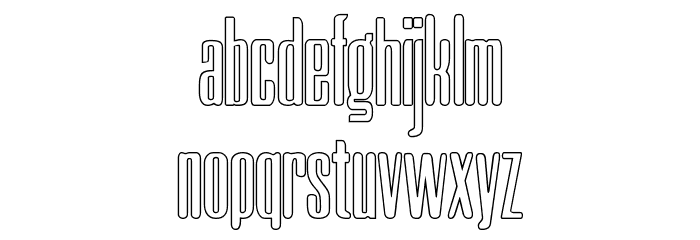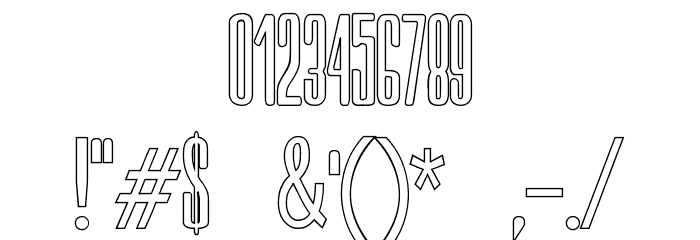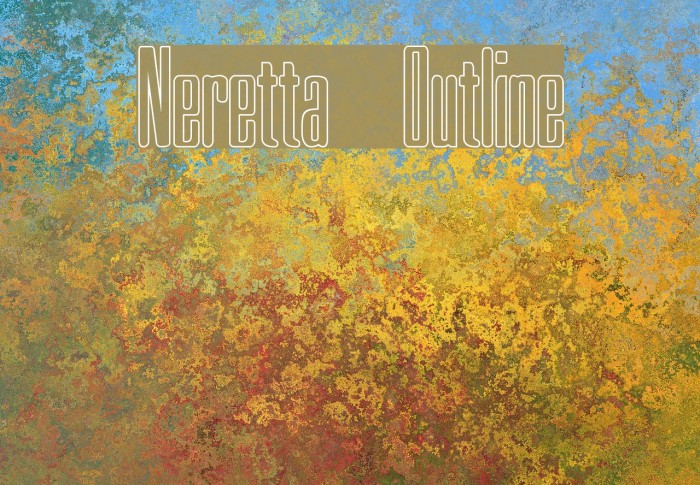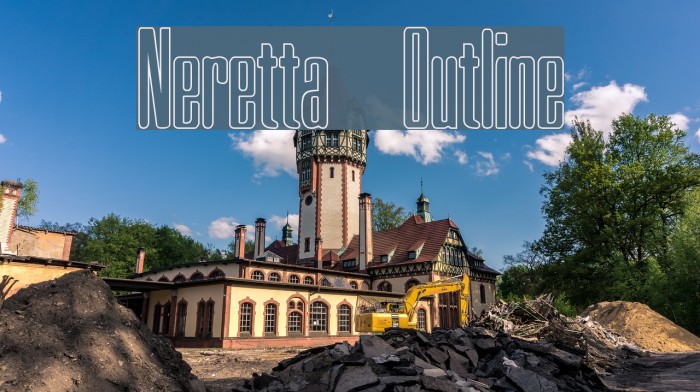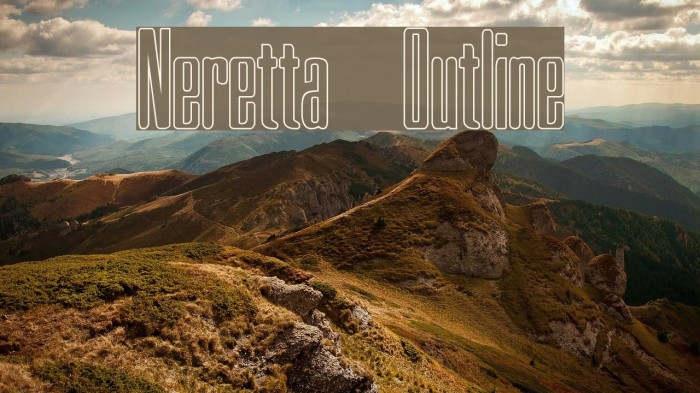
Neretta Outline Font
This font features a distinct outline style, giving it a modern and eye-catching appearance. The characters are tall and narrow, with a consistent stroke width that creates a uniform look across all letters and numbers. The uppercase and lowercase letters maintain a similar height, enhancing the font's cohesive design. The special characters are designed to match the overall aesthetic, ensuring a seamless integration with the alphabetic characters. This font's outline nature makes it ideal for projects that require a bold statement without overwhelming the viewer.
A modern, outlined font with tall, narrow characters and consistent stroke width.
- Proposed Projects: Ideal for headlines, posters, logos, and branding materials where a striking, modern look is desired.